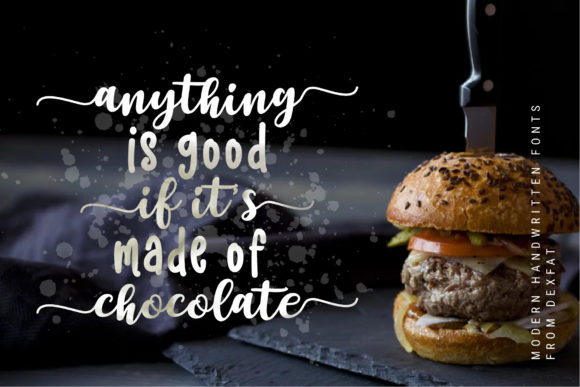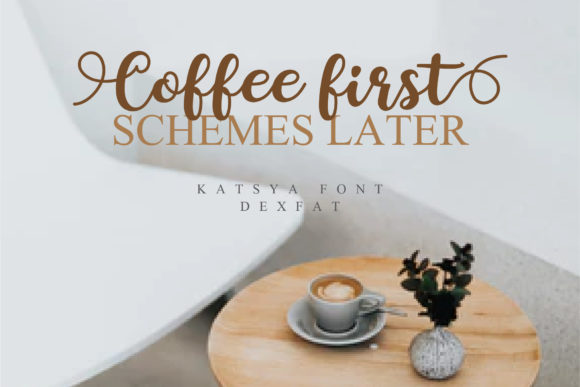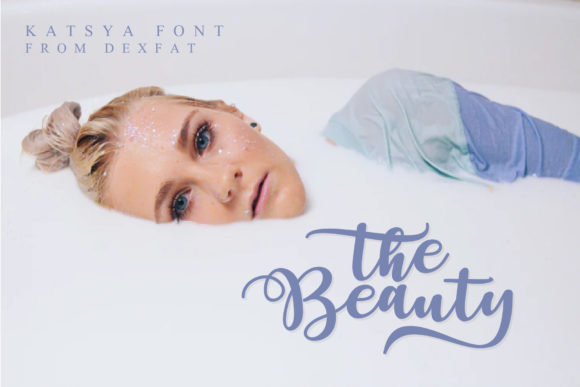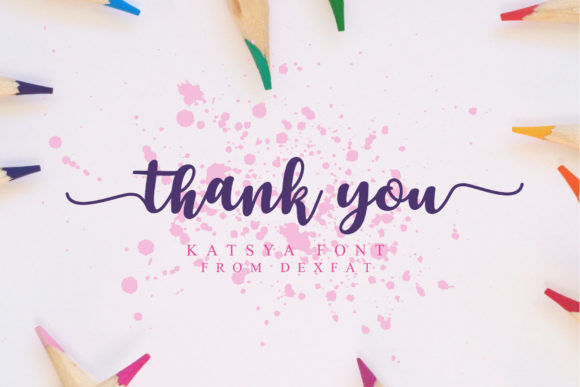
Introduction to Katsya Script Font
Have you ever been working on a creative project, and the perfect font is the missing piece that brings it all together? For designers, finding the right font can be the difference between a good design and a great one. It’s that moment when everything clicks, and the words flow effortlessly onto the page.
Enter the Katsya Script Font, a beautiful and stunning script font with a light and charming feel that’s sure to capture your heart. With its romantic swashes and elegant curves, this font is a design resource that’s perfect for any creative project that needs a touch of sophistication and whimsy.
Key Features of Katsya Script Font
- Unique, handwritten script style that adds a touch of elegance and sophistication to any design
- Designed to be versatile and suitable for a wide range of creative projects, from wedding invitations to branding materials
Honest Review: Katsya Script Font
I recently had the chance to work with the Katsya Script Font, and I must say it’s been a great addition to my design resource library. The font is perfect for any creative project that requires a touch of elegance and sophistication.
What works well with the Katsya Script Font is its versatility. It’s available for free download, which is a huge plus, and it comes in a transparent background version, making it easy to use on any background color or image. The high quality of the font is also impressive, with smooth lines and beautiful curves that make it perfect for headings and titles.
- ✨ Beautiful curves and lines that add elegance to any design
However, I did encounter some limitations with the Katsya Script Font. One of the main issues is that it’s not suitable for large blocks of text, as the font can become difficult to read when used extensively. Additionally, the font may not be compatible with all font types, so be sure to check compatibility before using it in your project.
Overall, I’m impressed with the Katsya Script Font and would definitely recommend it to designers looking for a high-quality, elegant font for their creative projects. With a little creativity and planning, the Katsya Script Font can be a valuable addition to your design library.
Common Use Cases for Katsya Script Font
Katsya Script Font is perfect for designing invitations, wedding stationery, and other creative projects that require a touch of elegance. Its high-quality design makes it an excellent choice for logos, branding materials, and marketing collateral.